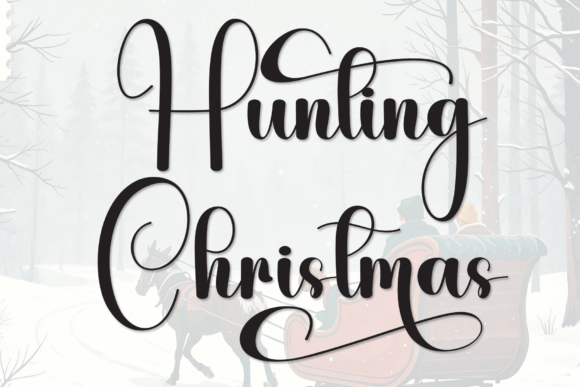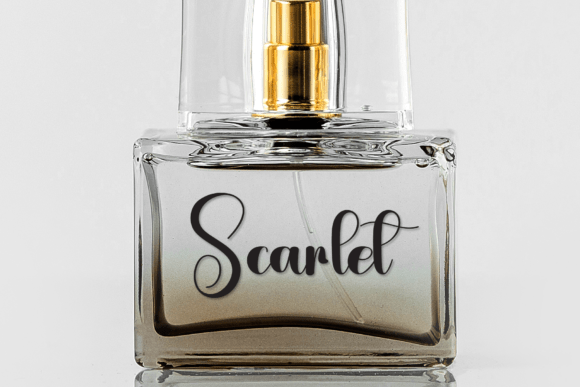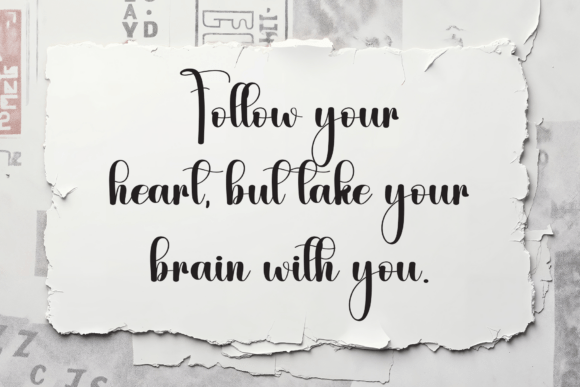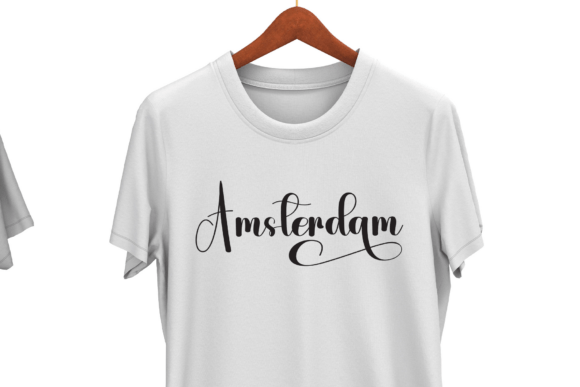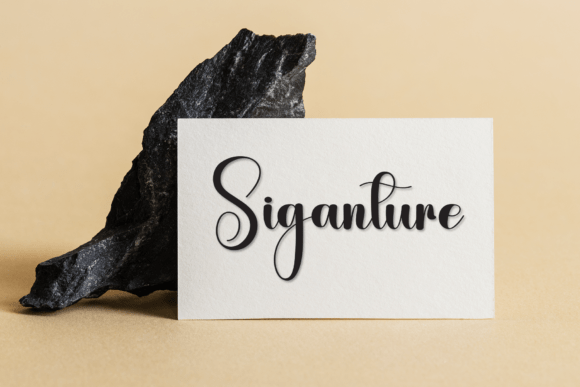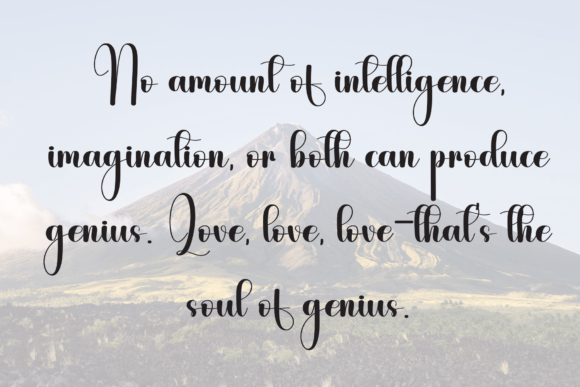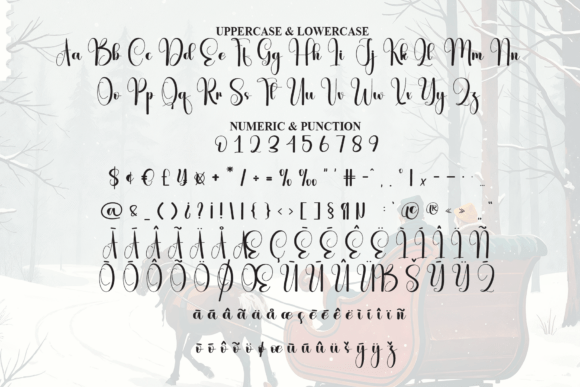
Discover the Joy of the Season with Hunting Christmas Font
As the holiday season approaches, designers often find themselves on a quest for the perfect font to capture the magic of the time. It’s a moment of creative fervor, when the right choice can make all the difference between a design that’s merely good and one that’s truly unforgettable. And that’s where the Hunting Christmas Font comes in – a delightful, handcrafted display font that embodies the spirit of the season.
This charming font is not just a pretty face; it’s a versatile tool that can add a touch of whimsy and friendliness to any design. Whether you’re crafting whimsical wedding invitations or heartfelt holiday cards, the Hunting Christmas Font is the perfect partner in crime. Its playful nature makes it a favorite among designers seeking to infuse their work with warmth and joy.
Hunting Christmas Font Key Features
- Unique Characteristics: The Hunting Christmas Font features a unique, hand-drawn design with a rustic and vintage feel, perfect for creating a festive and cozy atmosphere during the holiday season.
- Character Set: The font includes a wide range of characters, including uppercase and lowercase letters, numbers, punctuation marks, and special characters, making it suitable for various types of designs and projects.
Hunting Christmas Font Review
I recently had the chance to work with the Hunting Christmas Font, and I wanted to share my honest thoughts on this festive font.
- The font is perfect for Christmas-themed projects, and the design is quite unique.
- The weight of the font is well-balanced, making it easy to read.
- The font supports a wide range of languages, which is a big plus.
- The font may not be suitable for body text, as it’s quite decorative and may be hard to read in large quantities.
- The font’s design may not be to everyone’s taste, so it’s best to use it sparingly.
Overall, I think the Hunting Christmas Font is a great choice for Christmas-themed projects, but it may not be suitable for every project. It’s a bit limited in terms of file formats and may not be the best choice for body text. However, its unique design and well-balanced weight make it a great addition to any designer’s toolkit.
Use the Hunting Christmas Font to create festive holiday graphics, such as Christmas cards, gift tags, and social media posts.
Use the Hunting Christmas Font to create custom holiday graphics, such as vector illustrations and photo edits.
Use the Hunting Christmas Font to create festive holiday presentations and documents, such as Christmas party invitations and holiday reports.
Use the Hunting Christmas Font to add a festive touch to your holiday graphics and documents. Some common use cases include:
- Christmas cards and gift tags
- Holiday social media posts and graphics
- Custom holiday graphics and illustrations
- Festive holiday presentations and documents
Remember to experiment with different font